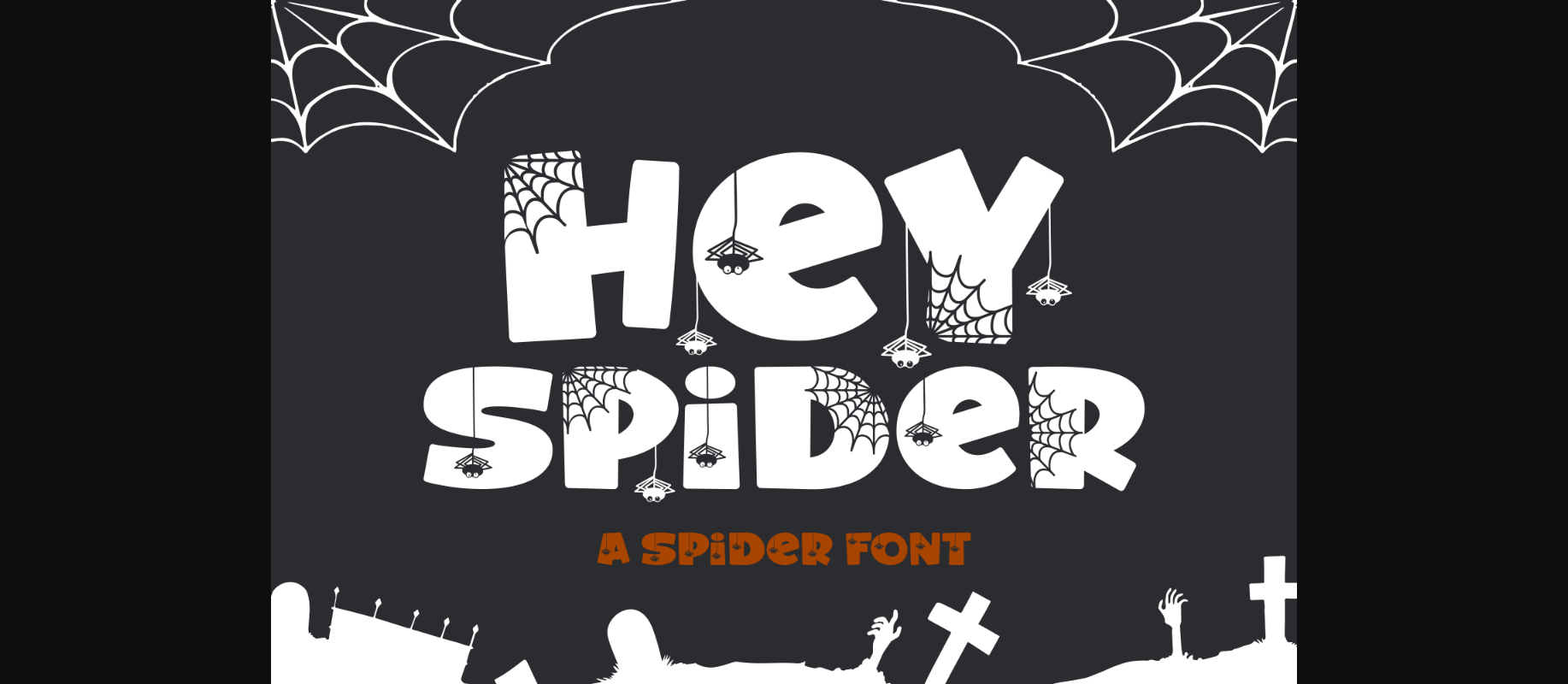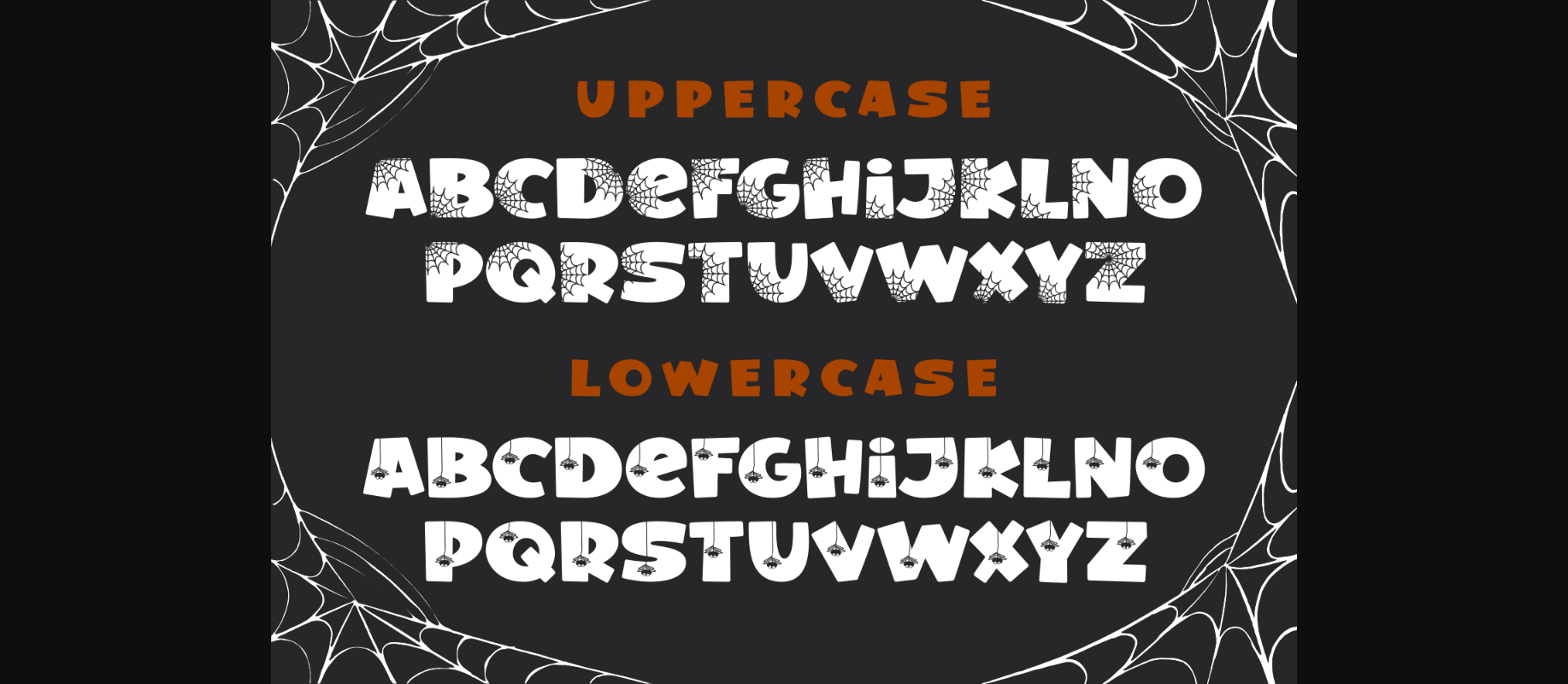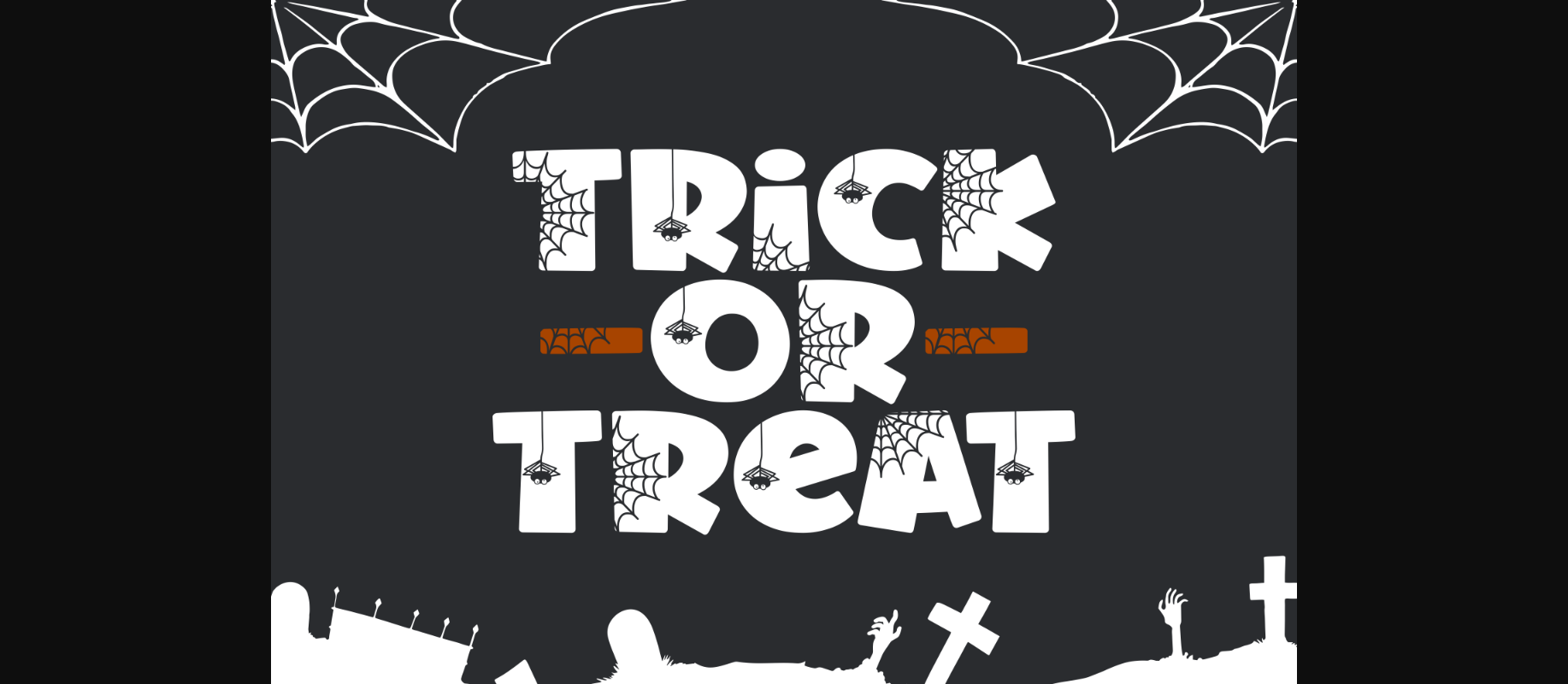
About Hey Spider Font
Hey Spider is a cool, fun and quirky decorative font. It embodies playfulness and authenticity and is the perfect choice for any children activity or school project.